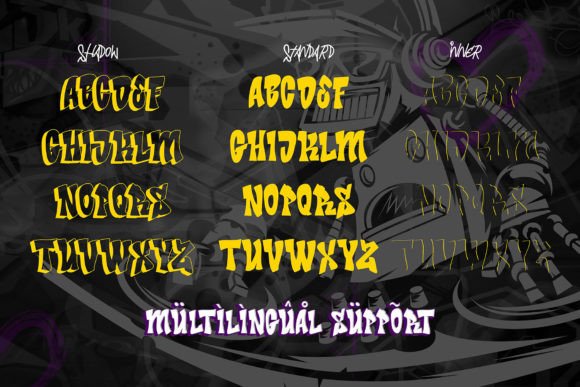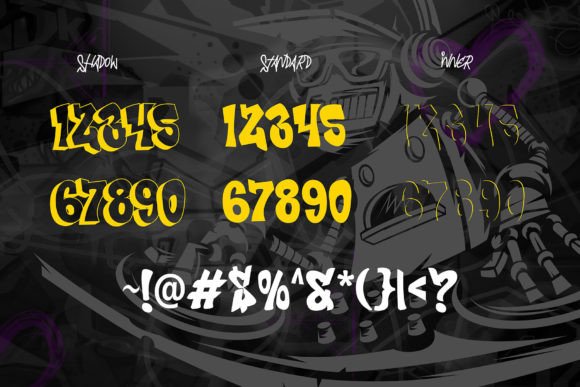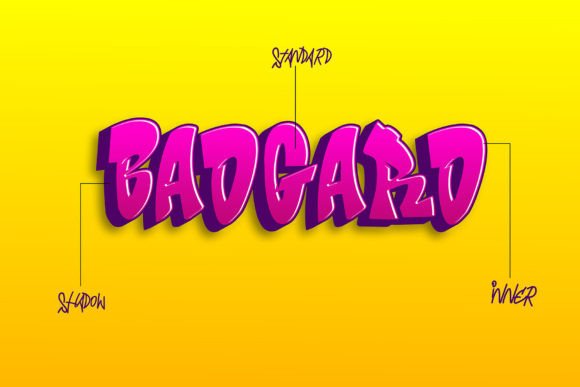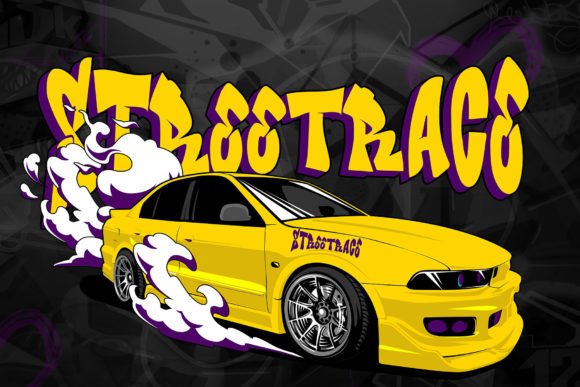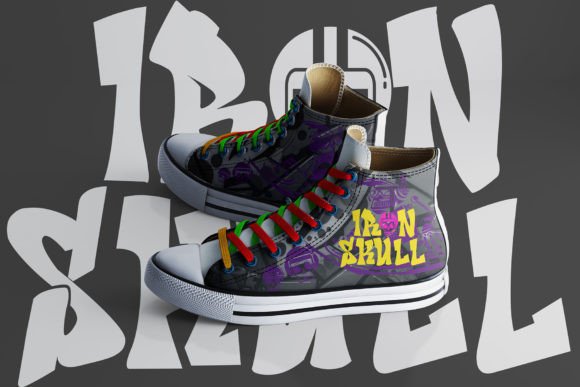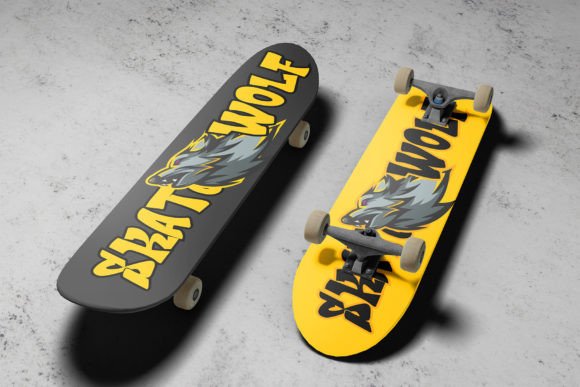
Introduction to Bade Hoper Font
Bade Hoper is an urban graffiti font characterized by sharp edges and a bold look.
Ideal for music posters, apparel designs, shirts, and streetwear, this font brings a touch of edginess to your projects The unique style of โBade Hoperโ makes it the perfect choice for street style or urban graffiti themes.